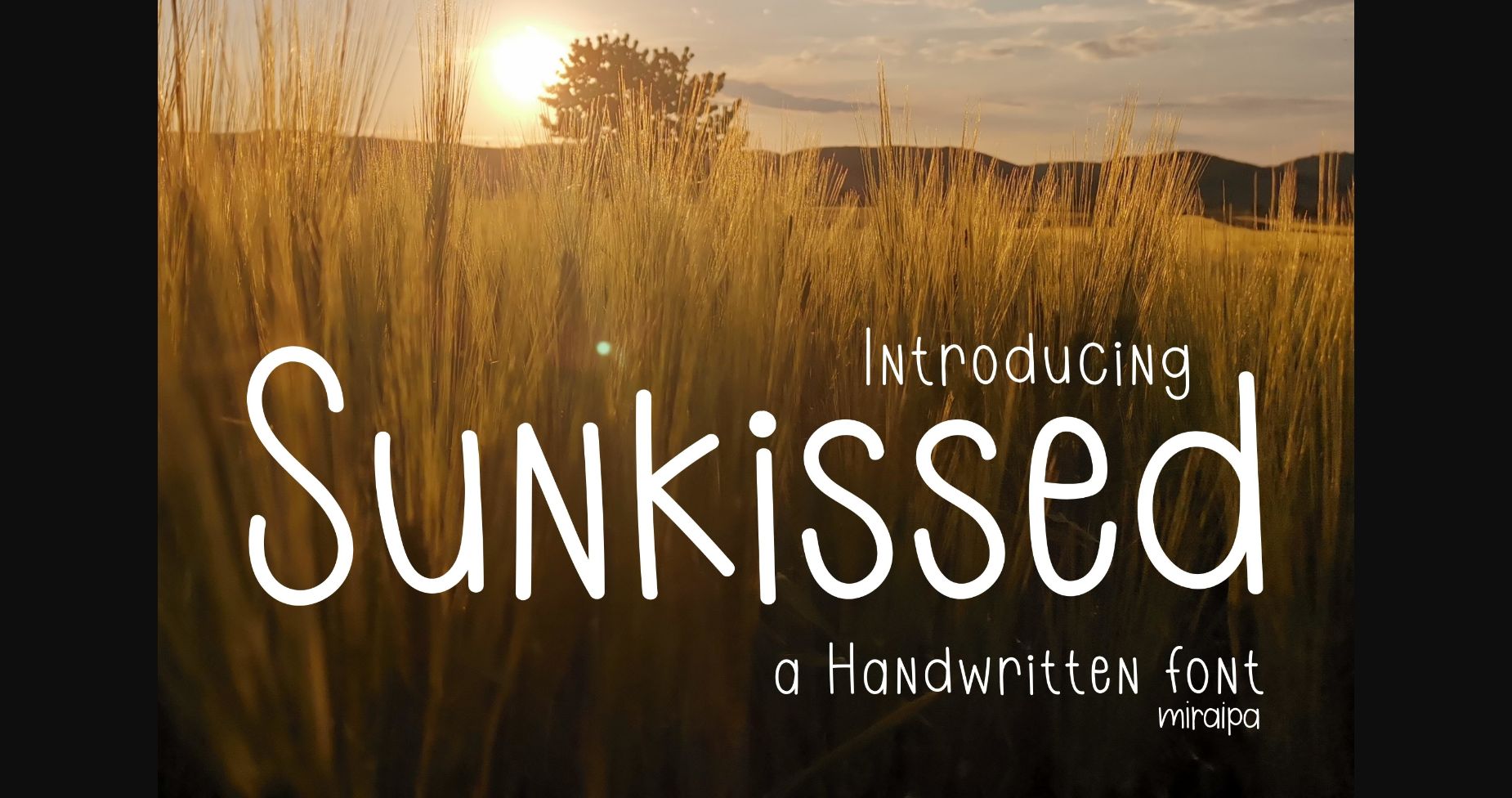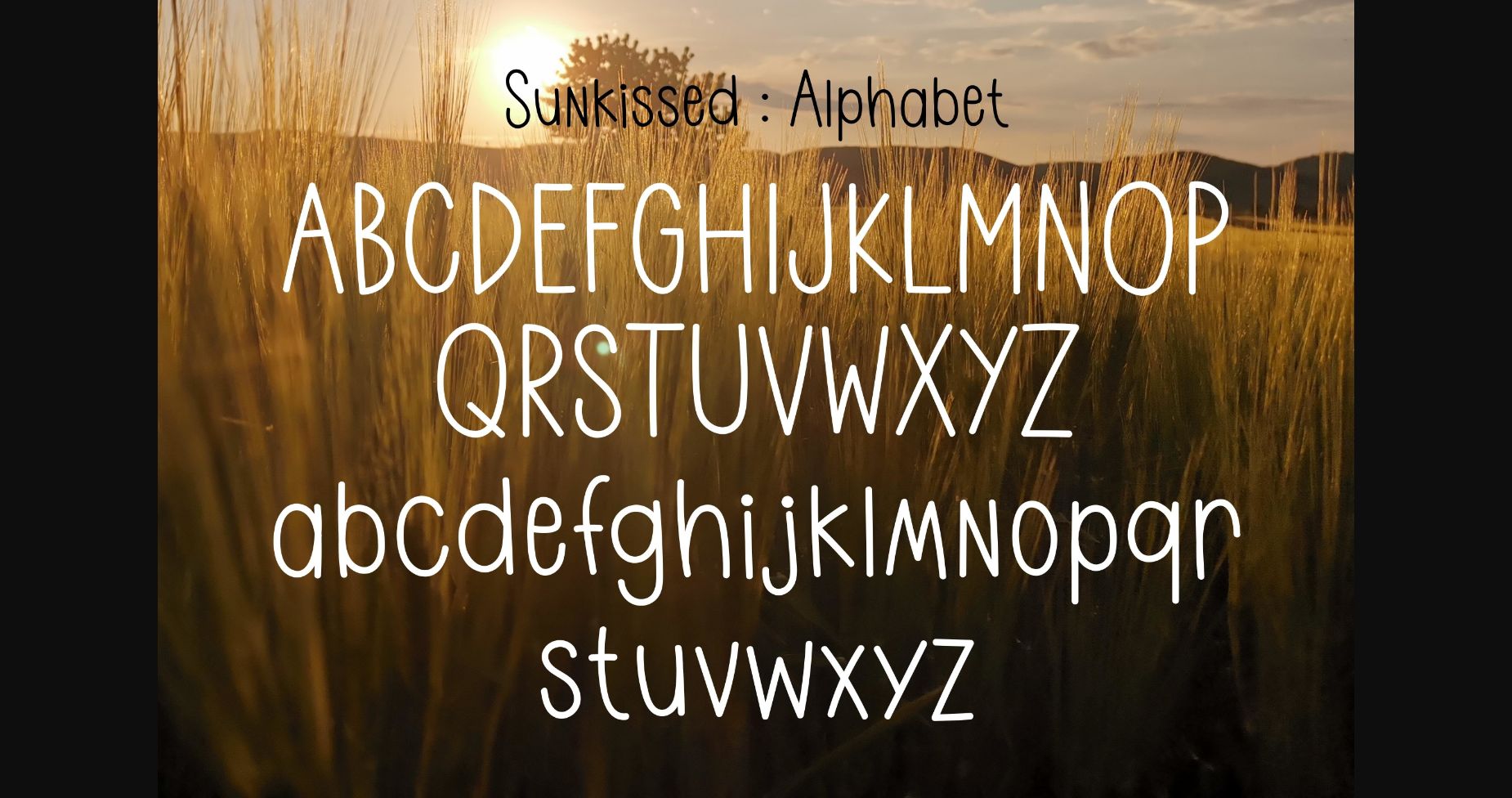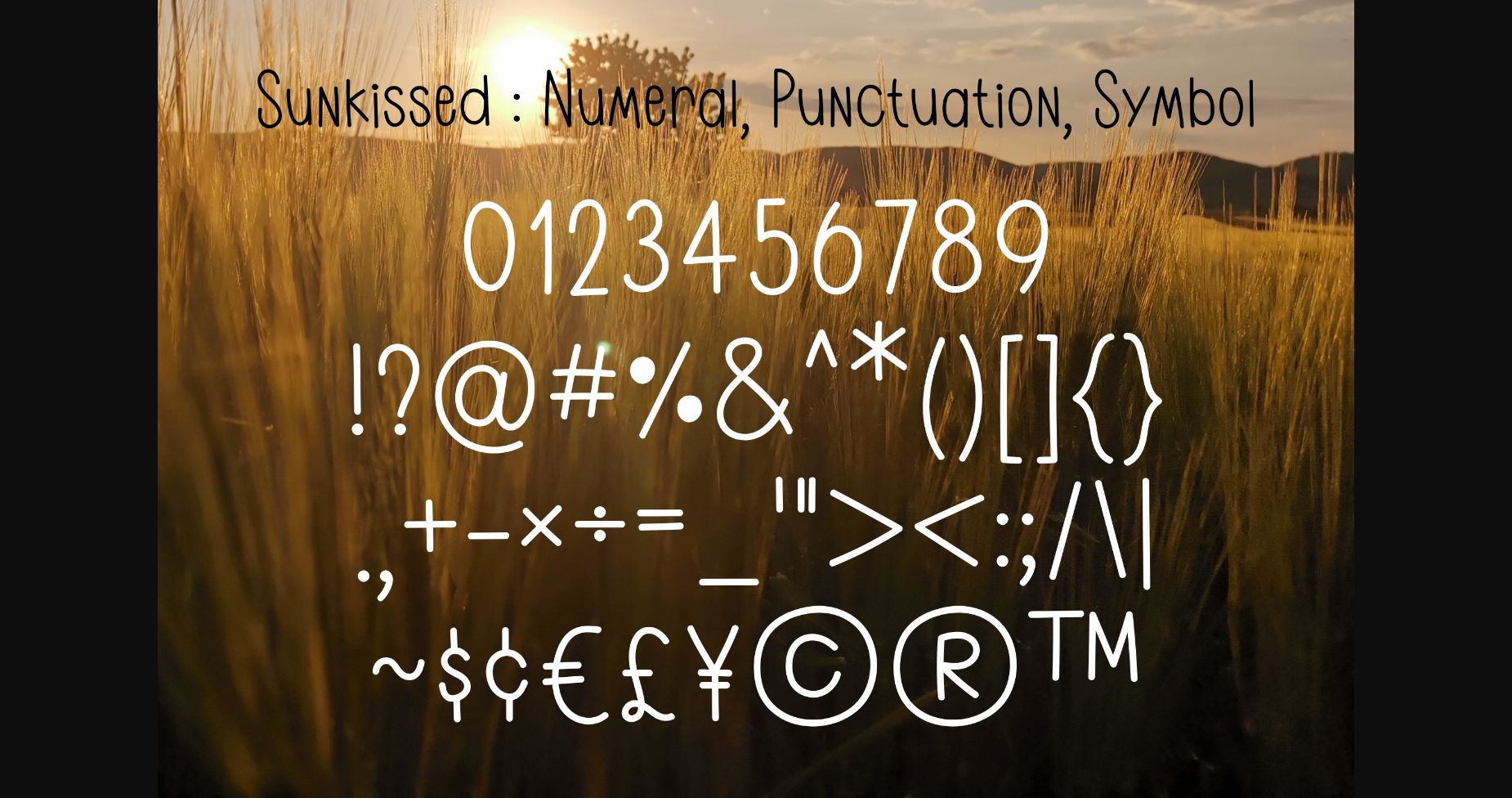
About Sunkissed Font
Sunkissed is a lovely and friendly handwritten font perfect for your everyday diary, planners, journal, back-to-school items, weddings, party decorations, invitations, festivals, posters, blogs, clothing, child-related designs, greeting cards, social media posts, and many more. Add it now to your fonts library, and it will bring any of your DIY projects to life.